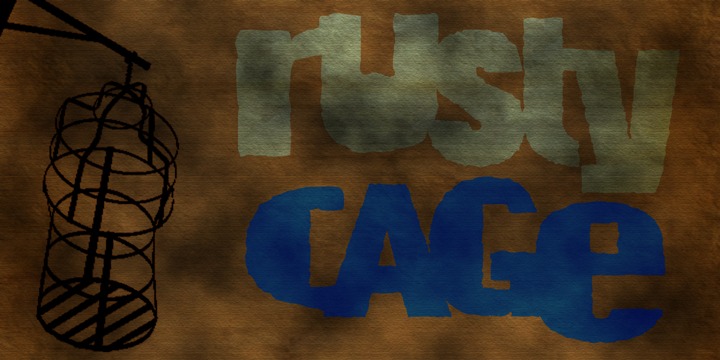
I named this font after one of my favorite songs by Soundgarden: “Rusty Cage”. The font is a mishmash of letters, which were hand-drawn and given a photoshop overhaul to make them look grungy and grotesque. I mixed upper and lower case letters, added a whole bunch of alternate letters, spooned in some Salt and Calt and added a pinch of Liga as well. The result is a weird concoction, which looks good on posters, in ads and possibly even tattoos. I dare you!